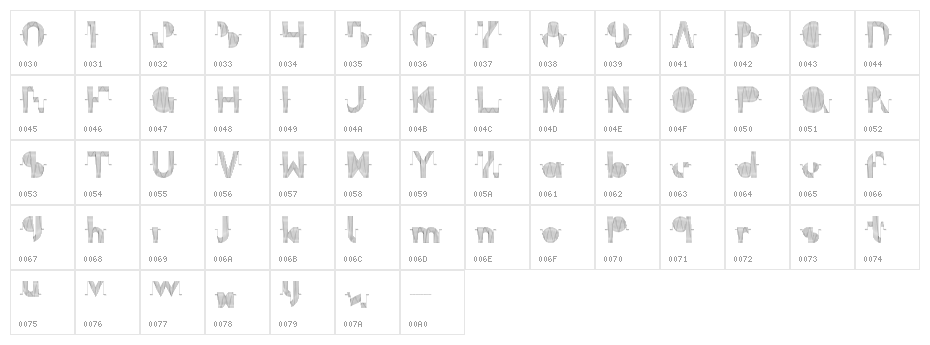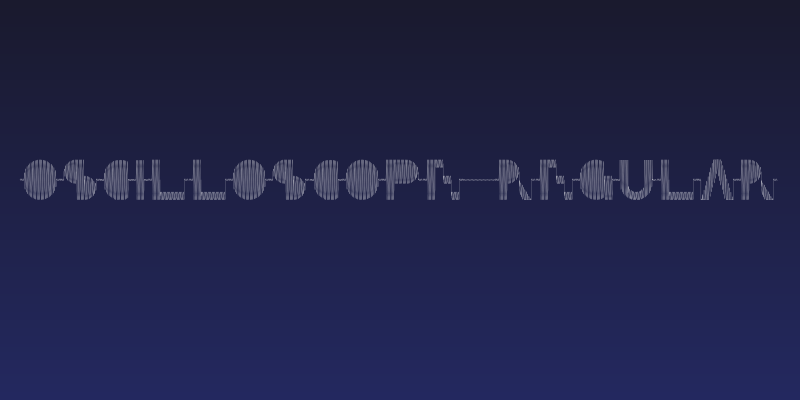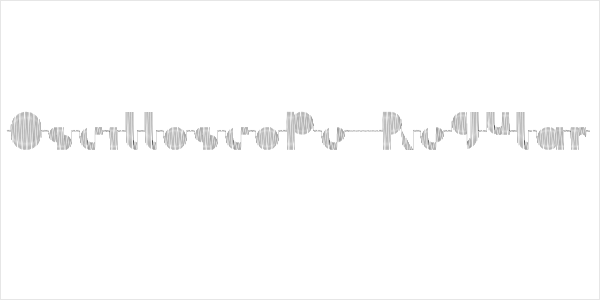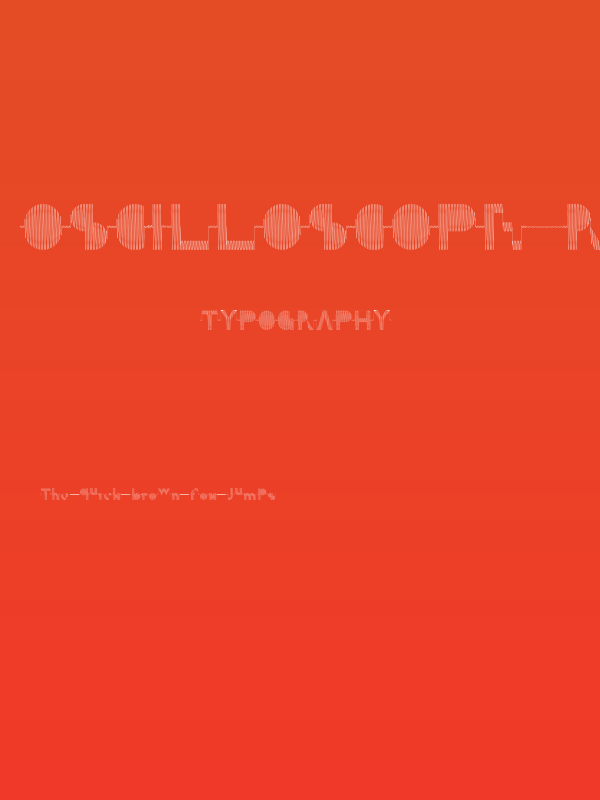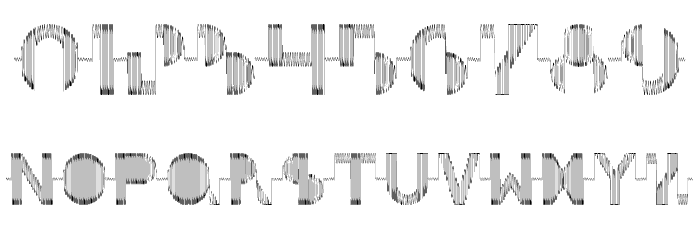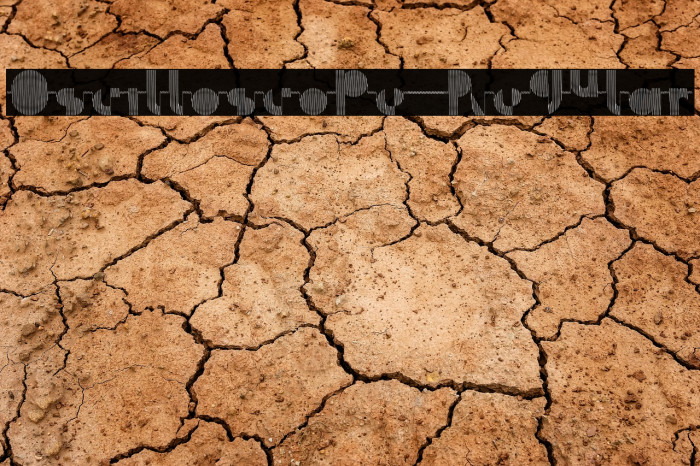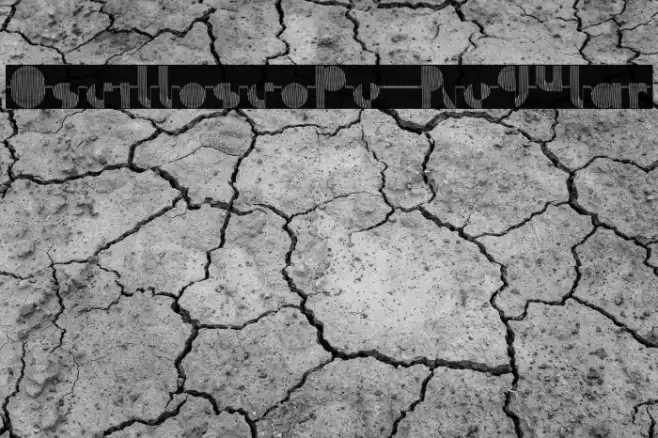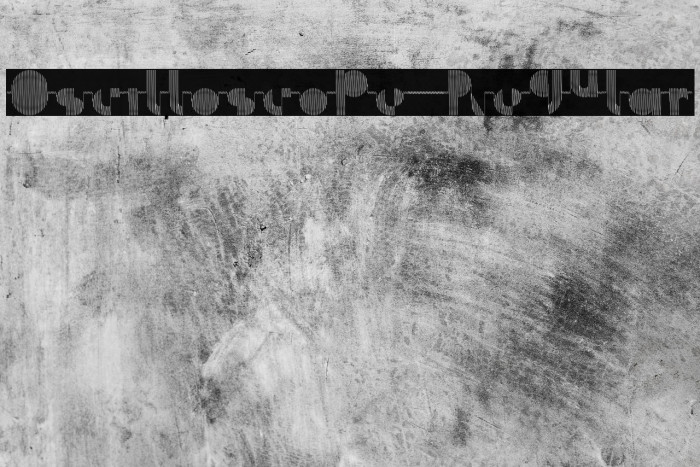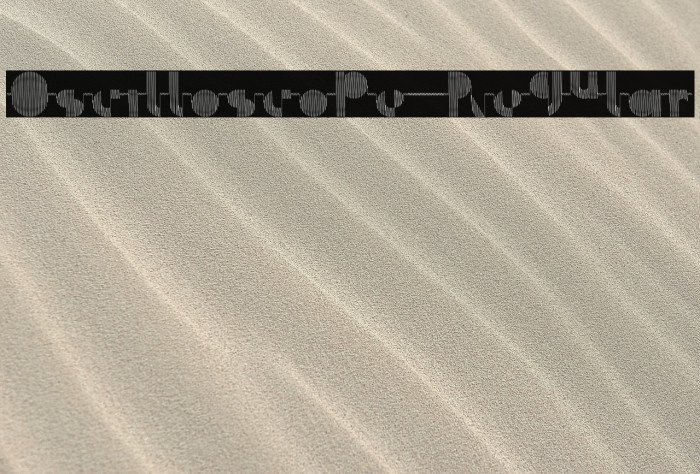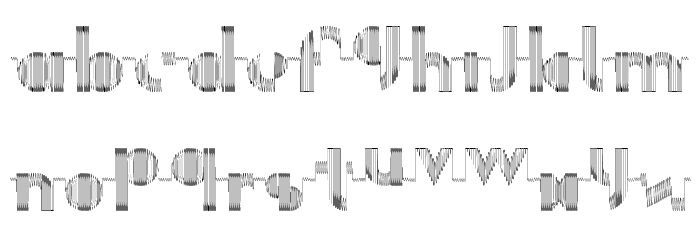
Oscilloscope Regular Font
Oscilloscope Regular Description
This font features a unique, decorative style that mimics the appearance of waveforms on an oscilloscope. The characters are composed of vertical lines that create a textured, dynamic look, giving each letter a sense of movement and energy. The uppercase and lowercase letters maintain a consistent design, with a playful yet structured form. The numerals and special characters follow the same aesthetic, ensuring a cohesive appearance across all text. This font stands out with its modern, tech-inspired vibe, making it ideal for projects that require a distinctive and eye-catching typeface.
| Proposed Projects | Ideal for tech-themed designs, music event posters, digital art, and branding for innovative products. |